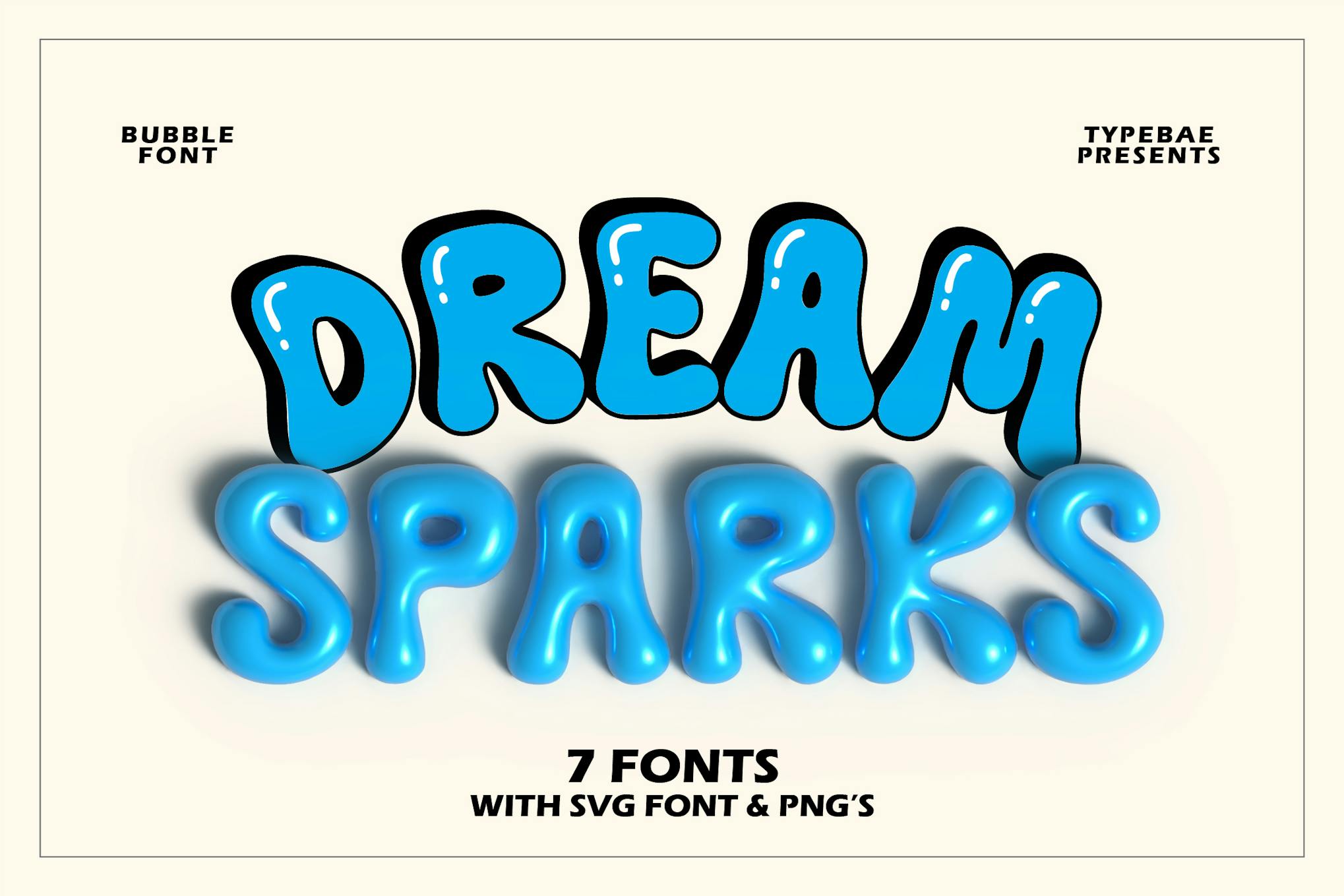
Dream Sparks - Bubble Display Font
Dream Sparks Bubble Display Font illuminates children's party invitations, playful toy packaging, bubble bath product labels, magical children's book titles, whimsical nursery wall art, candy store signage, birthday celebration graphics, childhood dream campaigns, festive balloon decorations, cheerful app interfaces, imaginative playground signage, and joyful family event materials where sparkling bubbles and dreamy playfulness create pure childhood wonder and happiness.
This delightful typeface generates excitement through its perfect embodiment of childhood dreams and sparkling bubble magic that creates typography radiating pure joy and imaginative wonder. Dream Sparks Bubble Display Font captures the essence of carefree childhood with its bubbly letterforms that appear to float with magical lightness and sparkle with dreamy energy. The font's whimsical design approach incorporates bubble-inspired roundness, sparkling effects, and playful proportions that evoke the wonder of soap bubbles dancing in sunlight and the limitless imagination of childhood dreams. Its distinctive character reflects the innocence, joy, and magical thinking that define the most precious childhood moments.
The Dream Sparks Bubble Display Font family includes multiple playful variations such as Regular, Light, Bold, and Extra Sparkle versions, each maintaining the font's characteristic bubble magic while offering different levels of whimsical impact. The collection features varying bubble sizes, sparkling particle effects, rainbow gradient options, and decorative elements including floating bubbles, twinkling stars, and dreamy cloud formations. Special display features include transparency effects that mimic real soap bubbles and sparkle animations perfect for digital applications.
Children's brand designers and family-focused creators consistently select Dream Sparks Bubble Display Font Free Download for projects requiring typography that captures authentic childhood wonder and creates instant emotional connection with young audiences. This remarkable typeface excels in applications where fostering imagination, joy, and positive childhood experiences are essential for brand success. The font's bubble-inspired qualities make it particularly effective for children's products, family entertainment, and educational brands targeting parents who value creativity, imagination, and childhood development.
Whether you're designing children's product packaging, creating family event materials, developing educational content, or building playful brand identities, Dream Sparks Bubble Display Font delivers unmatched childhood magic. Its ability to convey innocence, wonder, and pure joy makes it invaluable for brands seeking to connect with children and families through authentic emotional experiences. The font's sparkling presence ensures your designs will capture the magical essence of childhood dreams while communicating the safety, fun, and imaginative potential that define exceptional children's and family-oriented communications.